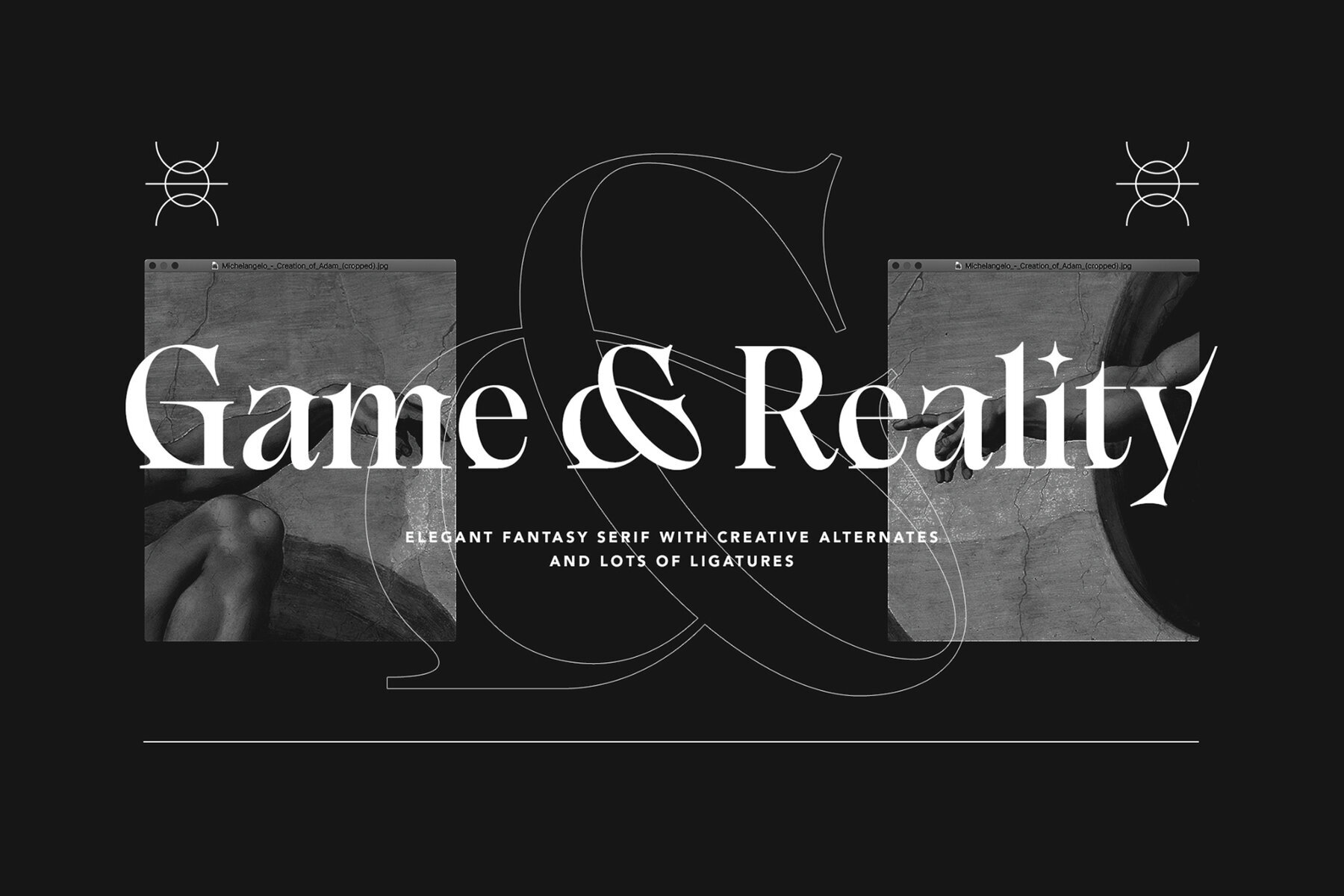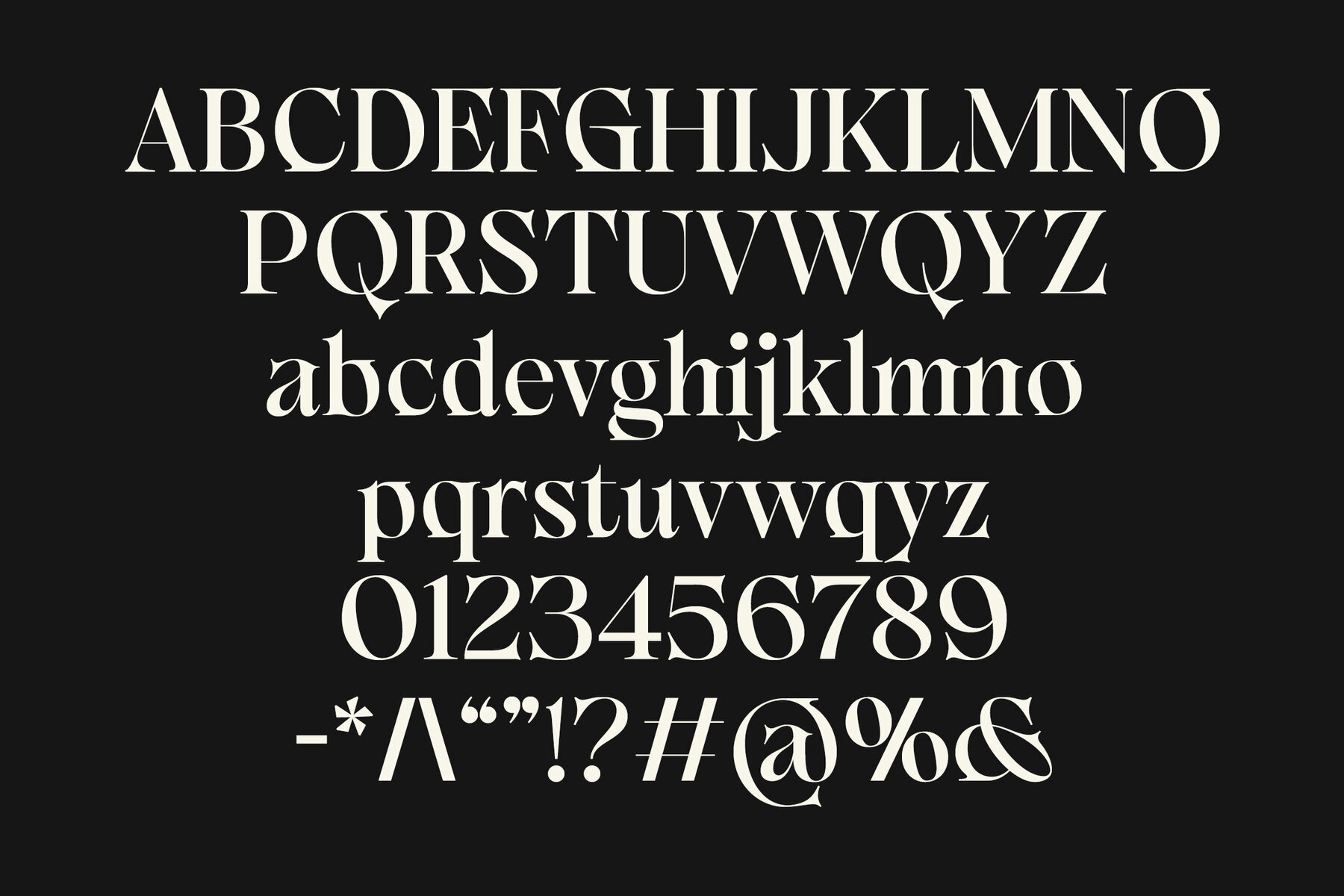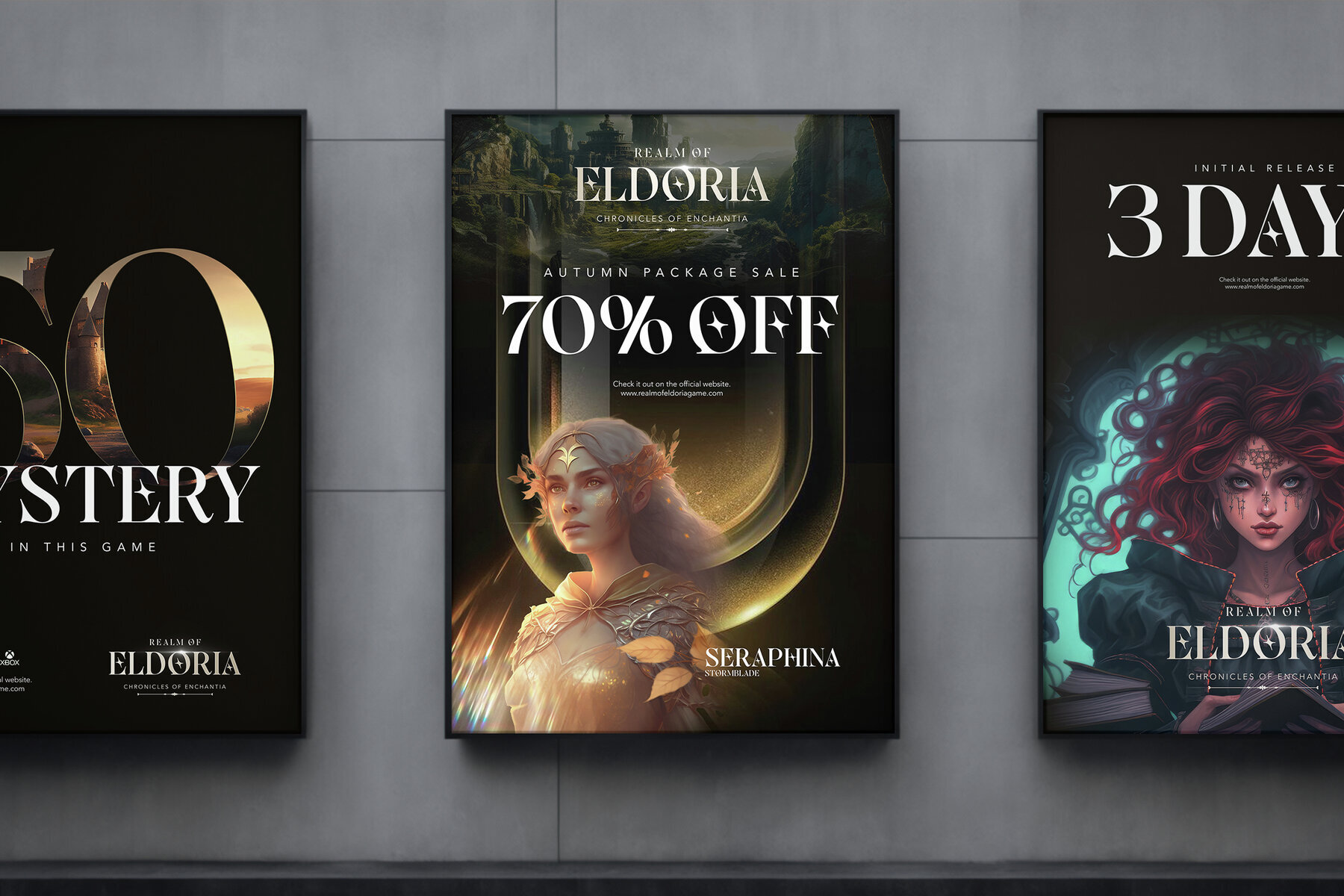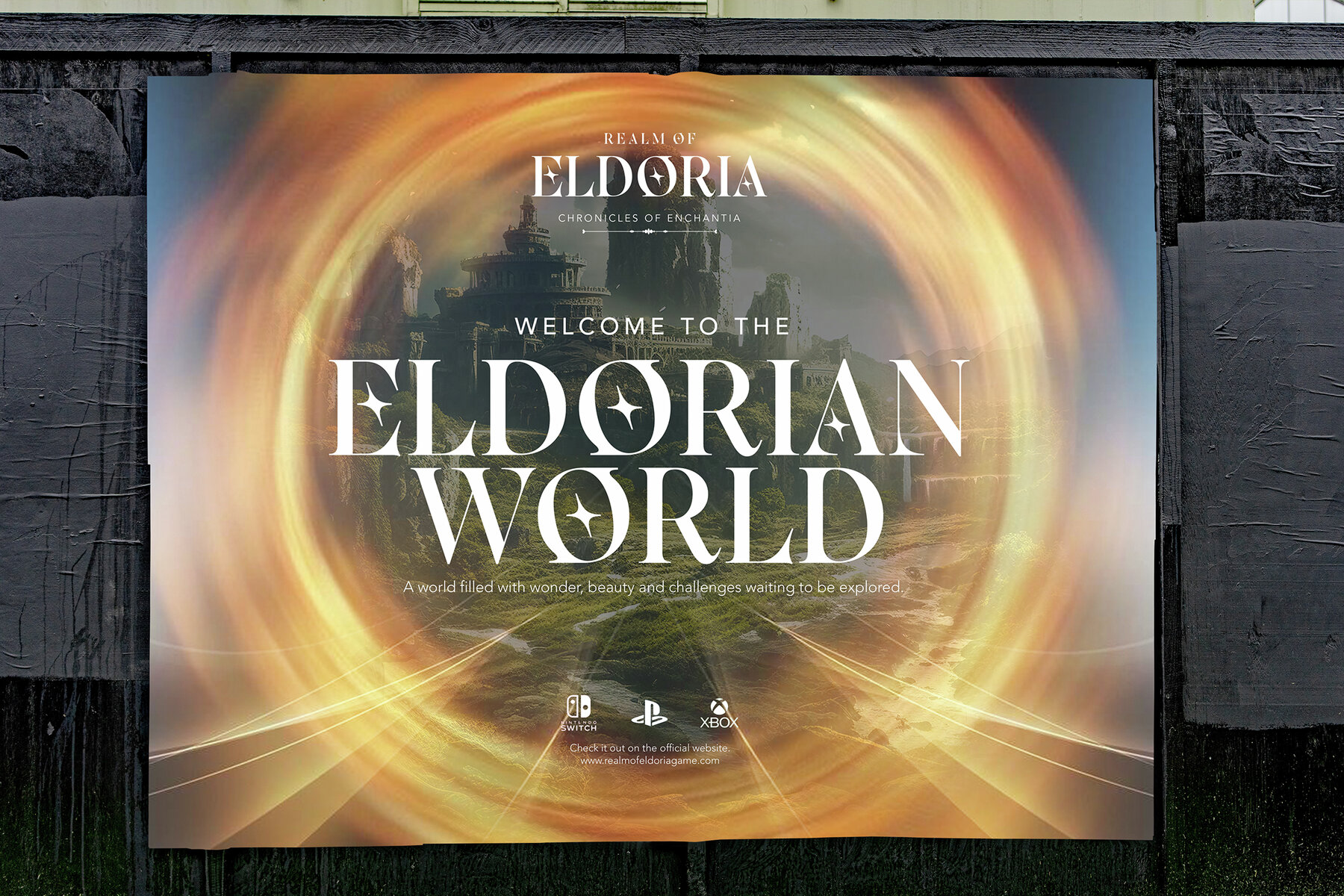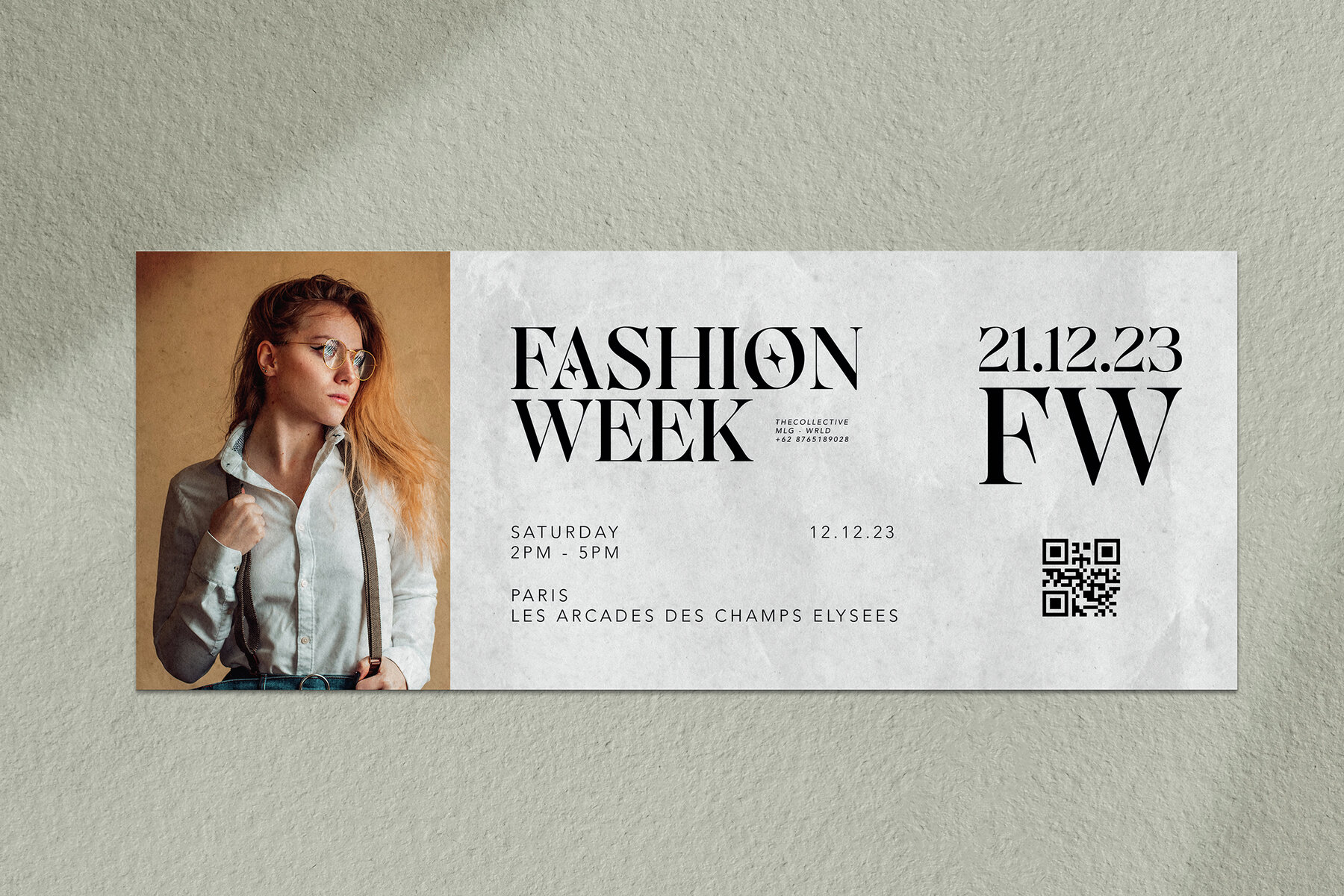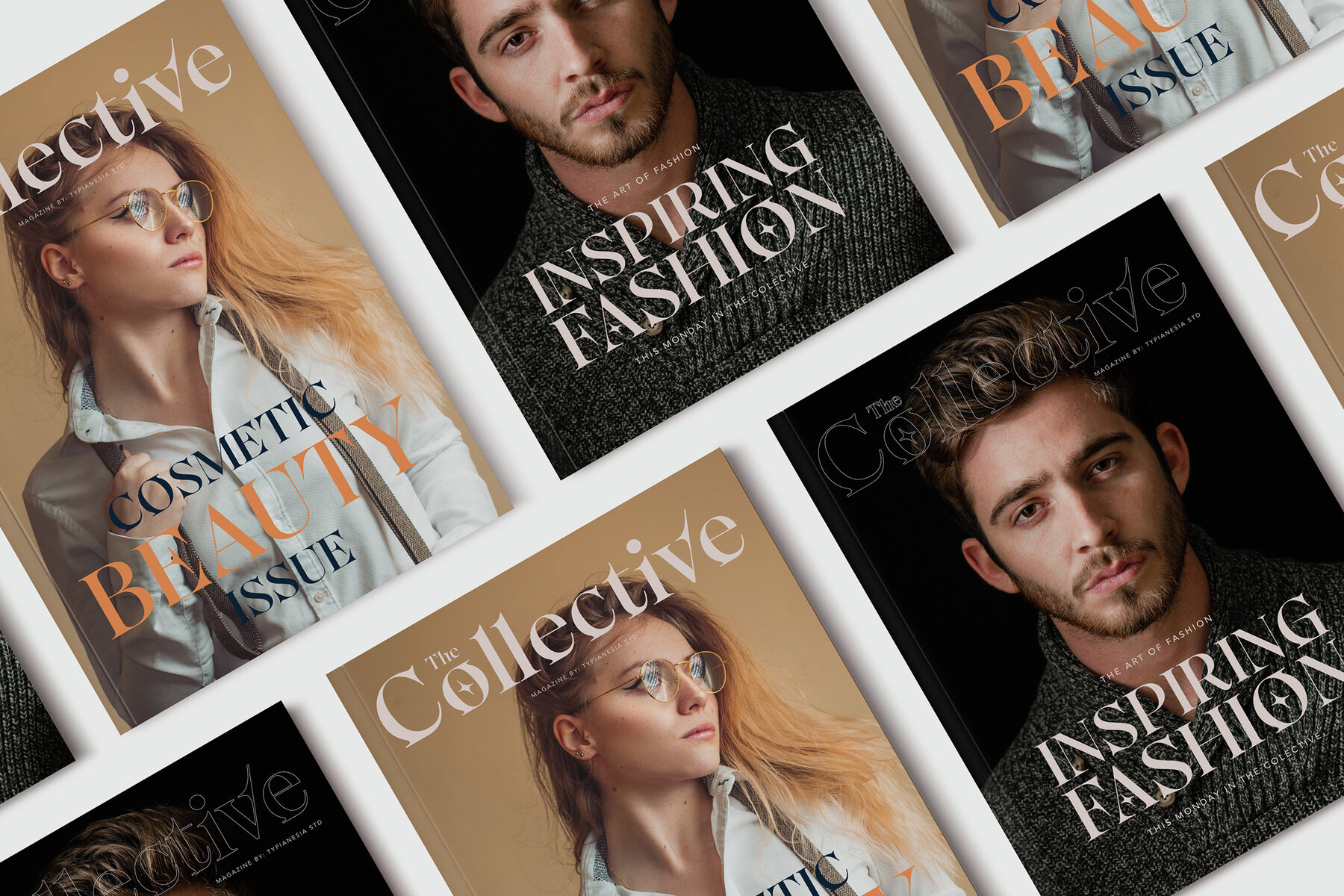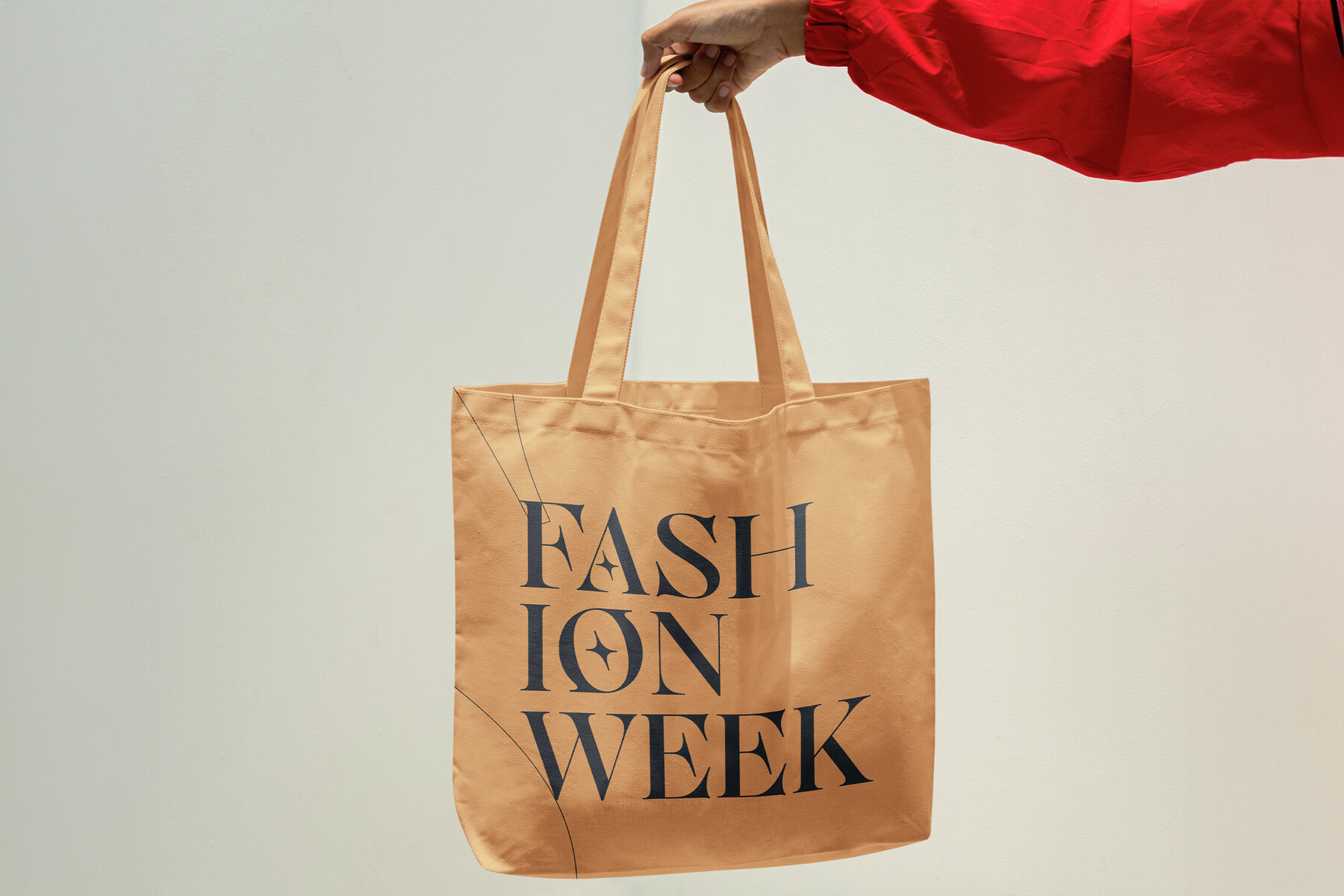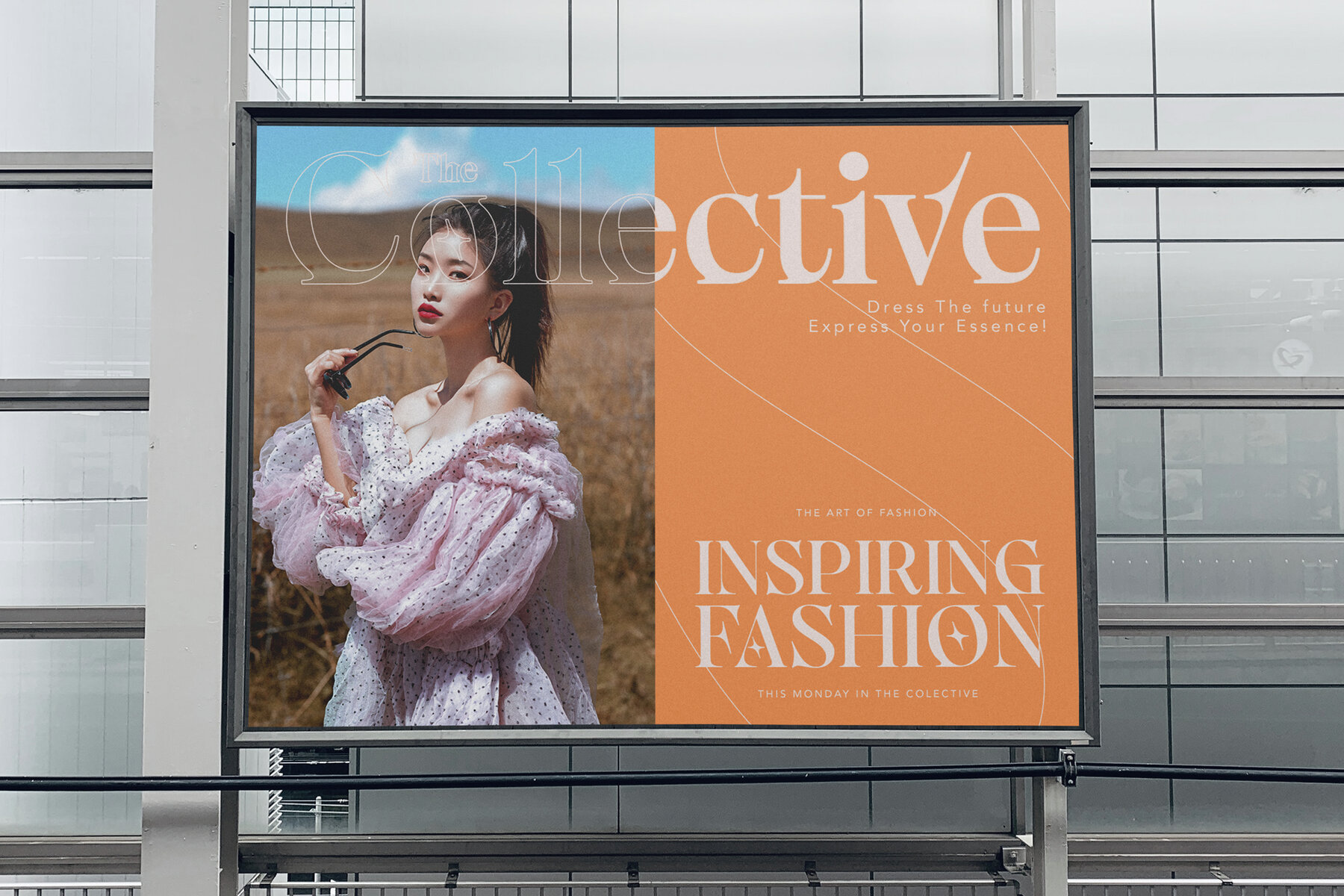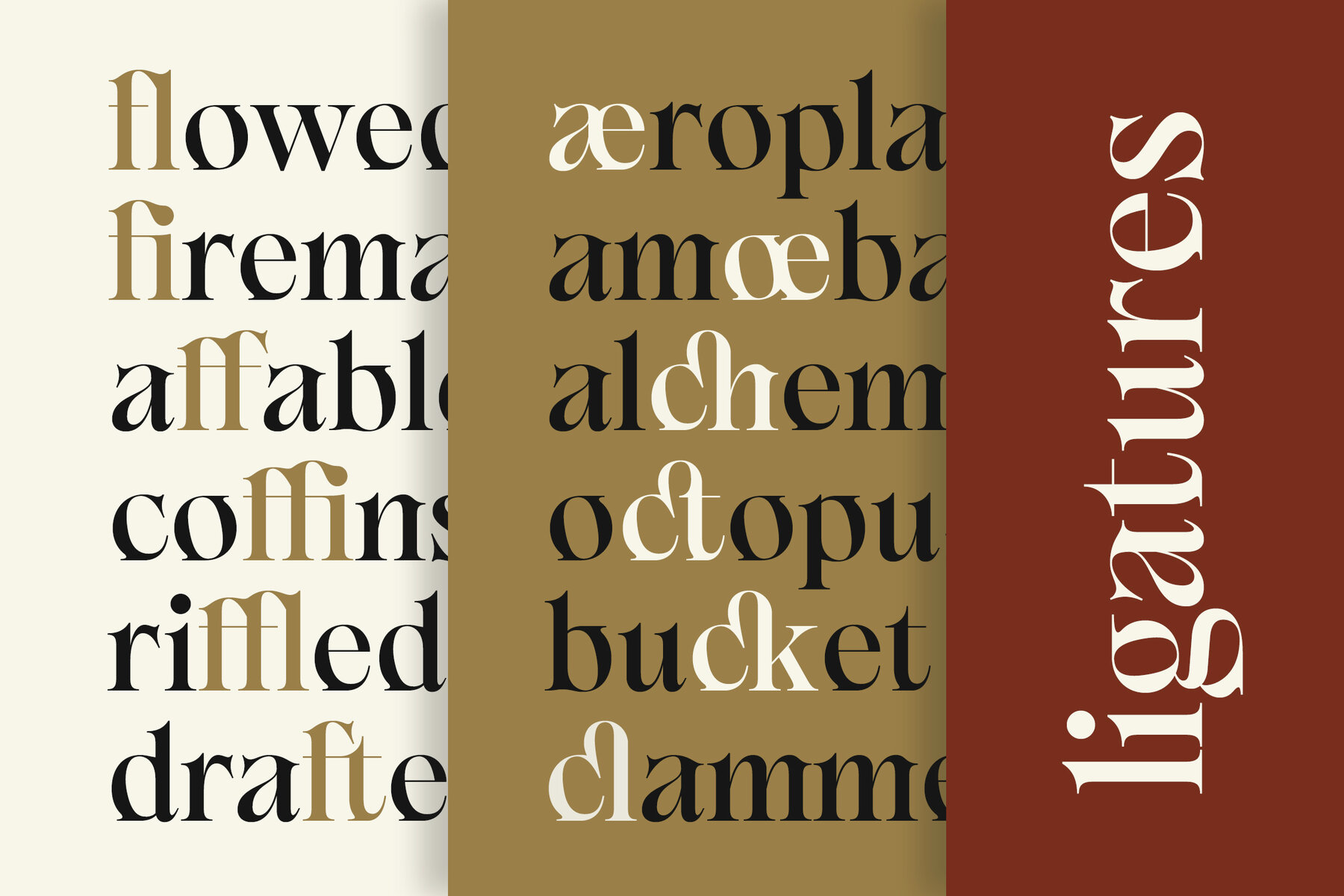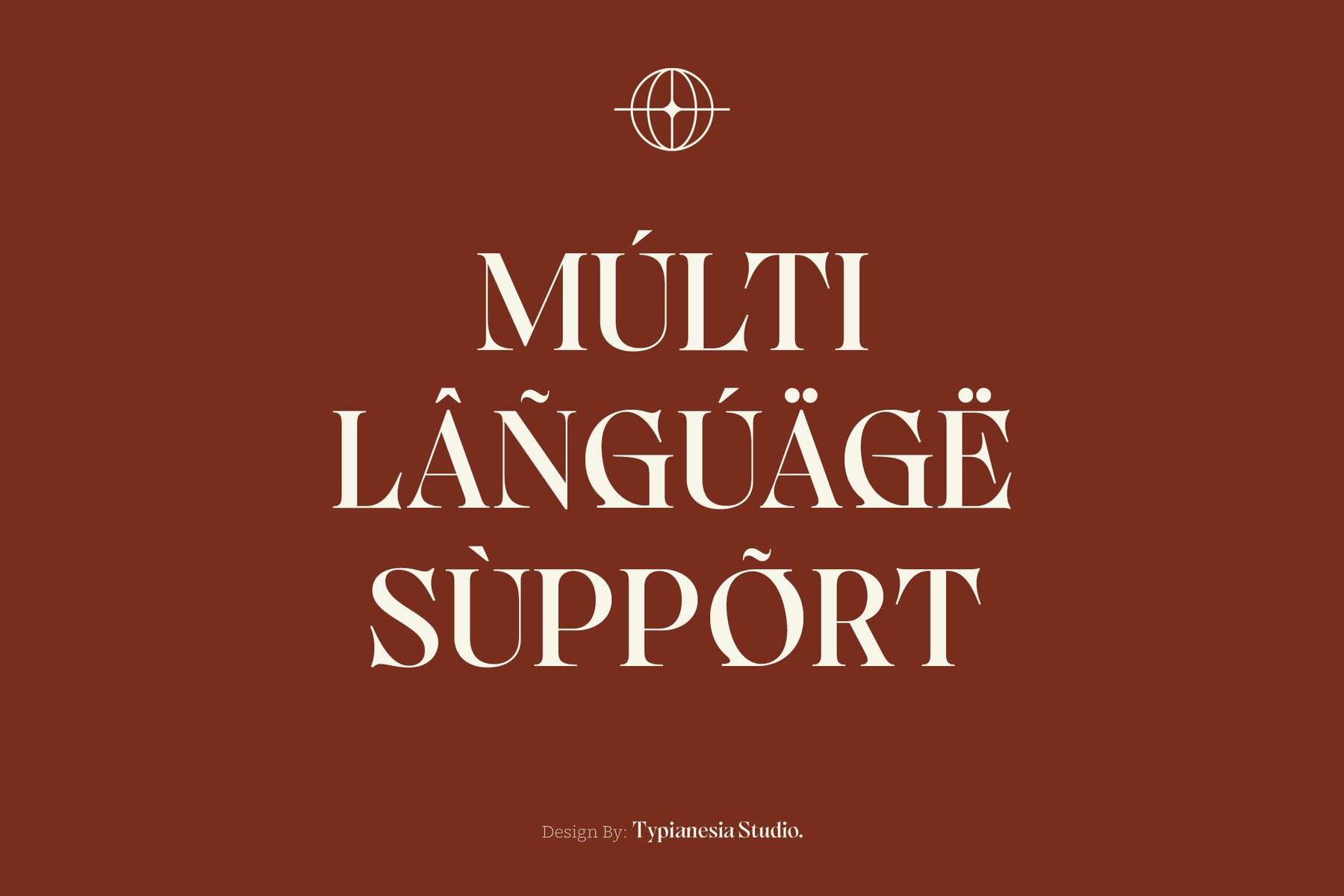
Game and Reality Font
Game and Reality Regular
Game & Reality is a sophisticated Elegant Fantasy Serif font designed to infuse enchantment into your creative projects. Perfect for branding, packaging, editorial design, and fantasy-themed ventures such as book covers, tabletop games, virtual reality gaming platforms, and fashion. This font adds an elegant and mystical flair to your typography.
Featuring ligatures, Game & Reality ensures a smooth, visually appealing reading experience, making it ideal for projects requiring a balance of fantasy and refinement. Enhance your gaming interfaces, book covers, and other creative endeavors with a touch of magic.